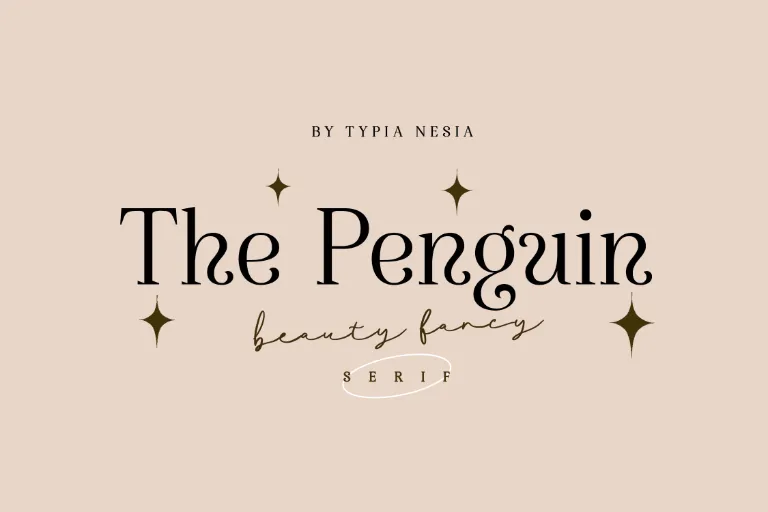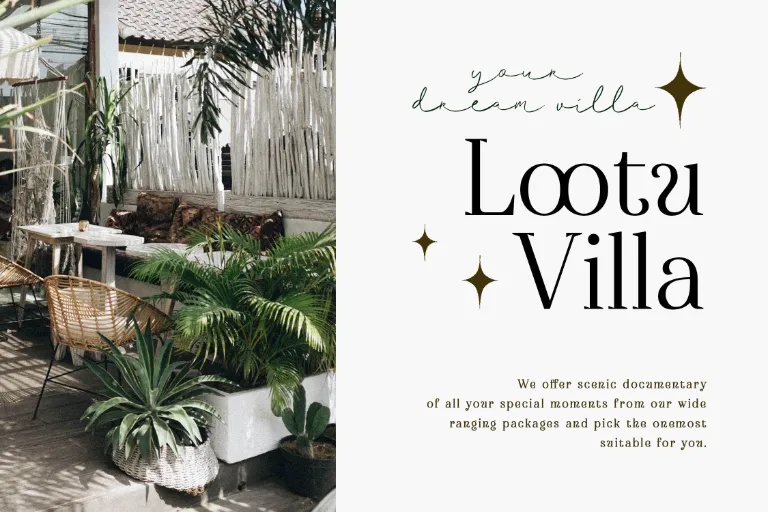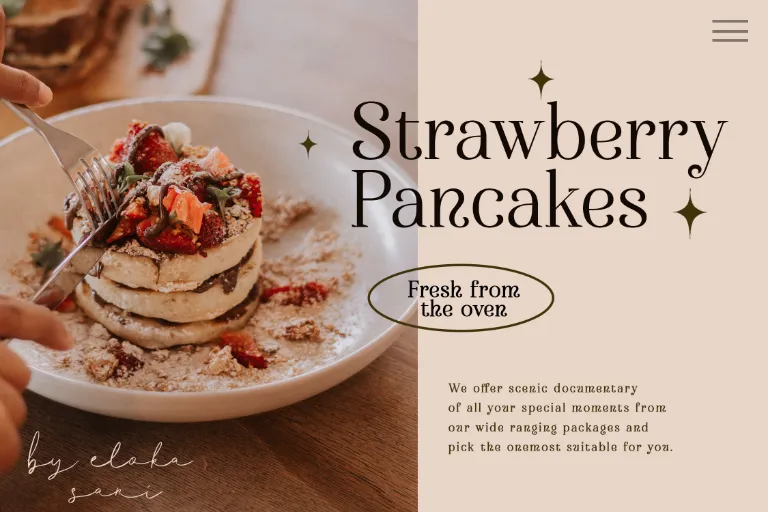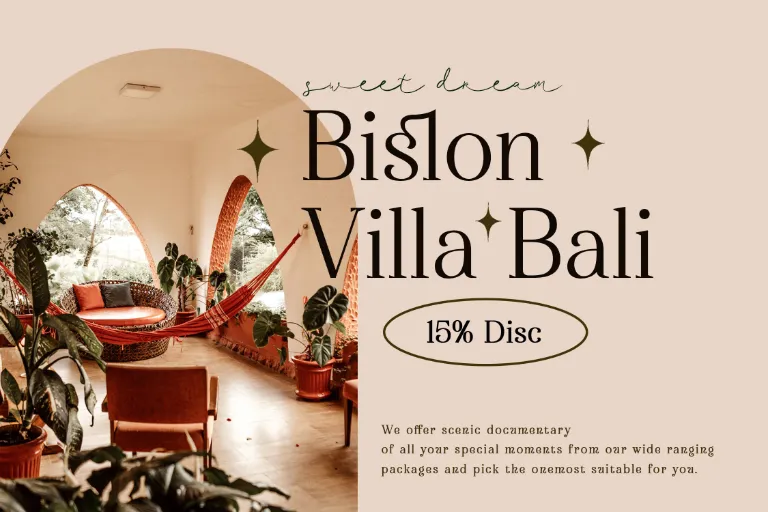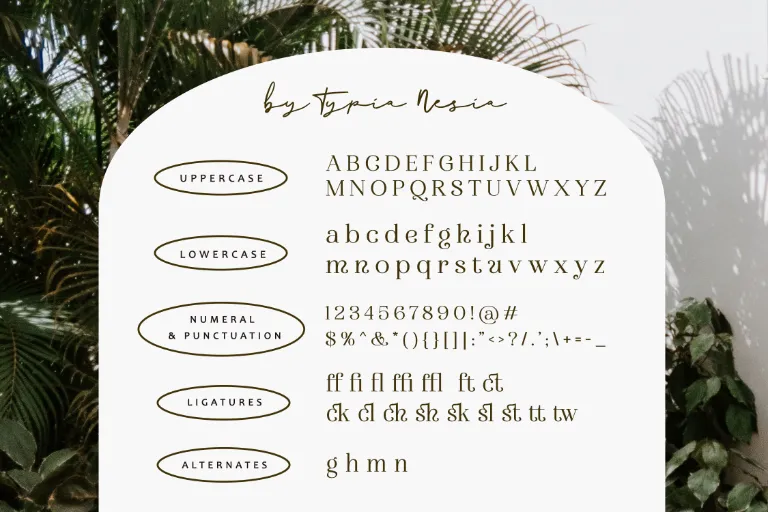
About The Penguin Font
As a typographer and graphic designer, I’m always searching for fonts that can tell a story. I came across The Penguin Font while browsing for a fresh typeface that could blend elegance with creativity. Its smooth flow and clean structure instantly caught my eye.
I used it in a brand logo design for a contemporary lifestyle label, and the results were striking. It added a refined yet playful charm that balanced the modern theme perfectly. Writing this review felt important because this font truly impressed me with its detail, versatility, and professional polish.
The Font Type and Designer
The Penguin Font is a serif font that brings sophistication and warmth together. Designed by Lukman Typia Nesia, it reflects thoughtful craftsmanship and a deep understanding of typography. The font family has a timeless appeal, inspired by the smooth, graceful motion of a penguin gliding across ice. The curves are subtle, the strokes are confident, and the balance between form and space feels deliberate and artistic.
Each letter shows precision and personality. The glyphs flow beautifully, creating a rhythm that feels both elegant and friendly. The designer managed to merge modern minimalism with a hint of classic charm, resulting in a typeface that works across styles and mediums. Whether you view it as a serif or display font, its adaptability stands out.
The Penguin Font fits perfectly in both editorial and visual contexts. It works well for logos, editorial designs, packaging, and digital interfaces. Its structure leans toward modern elegance, yet it carries traces of classic beauty. The result is a font that feels professional but never stiff. Lukman Typia Nesia’s attention to aesthetics and precision ensures that every character maintains a graceful visual harmony.
Features of This Font
The Penguin Font captures attention with its strong typographic personality. It combines clean geometry with expressive detail, giving each letter a sense of rhythm and purpose. The ligatures and character set are designed for maximum readability while preserving artistic flair. It’s not just elegant; it’s practical too.
This typeface adapts well across both print and digital formats. The TTF structure ensures crisp lines and consistency, making it ideal for long text blocks or editorial designs. The glyphs include unique alternates and stylistic touches that help designers create standout compositions. It gives you the flexibility to experiment while keeping the visual tone refined.
The Penguin Font is perfect for brands that value personality and poise. It’s a great choice for editorial designs, fashion magazines, and logos that need a balance of charm and sophistication. Its serif structure gives it authority, while its curves add warmth and approachability.
Its versatile character design suits everything from custom art projects to commercial branding systems. It can enhance minimalist layouts or pair with expressive color palettes for bold compositions. Whether you’re aiming for a modern edge or a classic vibe, The Penguin Font adapts seamlessly. It’s one of those free fonts that instantly elevates any creative concept.